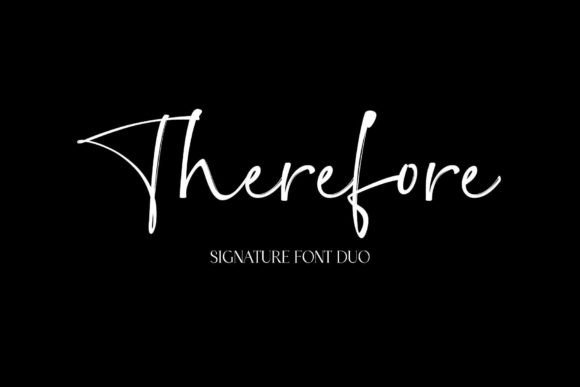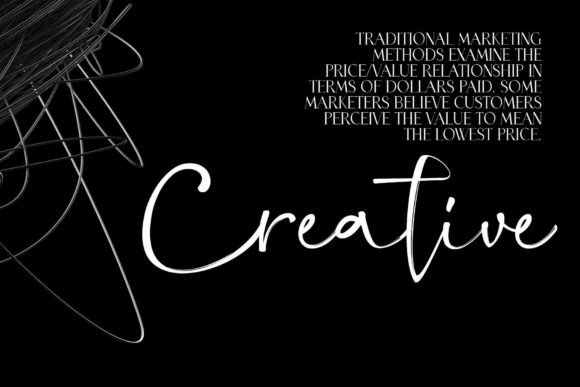
A Fantastic Script and Serif Font Duo
Therefore is a unique font duo that combines a beautiful script with a modern serif. This pairing creates a refined look that feels natural and professional. The script font has the look of real ink, adding an authentic touch to any design. Each stroke feels organic, giving your text a personal, handwritten feel.
The serif font is clean and elegant, perfect for editorial layouts and branding materials. When you pair the two styles together, you create a striking harmony that elevates your work.
Therefore is a versatile font duo designed for a wide range of creative projects. Use the script font for logos, signatures, or quotes. Its smooth flow and textured look make any text feel unique and handcrafted.
The serif font shines in editorial designs, magazine spreads, and websites. Its excellent readability ensures your content looks polished and professional.
Together, the two fonts can be used for wedding invitations, product packaging, social media graphics, and more. The contrast between the casual script and the structured serif creates a dynamic and balanced design.
Clear, Elegant, and Easy to Read
Despite its artistic style, Therefore remains clear and highly legible. The script font features balanced spacing and smooth connections between letters. Even in longer phrases, the text stays easy to read.
The serif font has classic proportions and clean lines, perfect for body text or headlines. Pair them together for a sophisticated look. Use the script font for titles and accents, and the serif font for supporting text. This combination ensures a stylish yet easy-to-follow layout.
To highlight Therefore’s elegance, use neutral color palettes and minimalist layouts. Soft shades like ivory, taupe, and charcoal allow the fonts’ details to shine without distraction.
For branding, keep your design simple. A logo in the script font with a tagline in the serif font creates a memorable identity. For wedding materials, add delicate flourishes or subtle textures to complement the script’s natural ink effect.
If you’re designing social media content, pair the fonts with clean photography and lots of white space. This approach keeps your design fresh, modern, and visually appealing.
Think about the mood you want to create. Therefore is perfect for designs that need to feel elegant, modern, and personal all at once.
Therefore is more than just a font duo—it’s a complete design toolkit that helps you create beautiful, balanced work. The script’s natural pressure and ink texture give your designs an authentic feel, while the serif font offers stability and style.
Adding Therefore to your font collection ensures you always have a versatile option for branding, editorial layouts, and creative projects. From logos and packaging to wedding invitations and social media posts, Therefore adapts to any vision with ease.